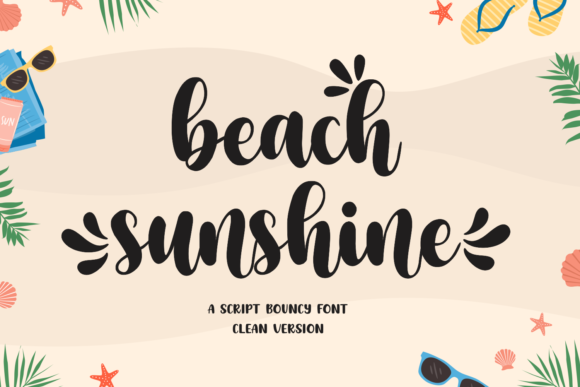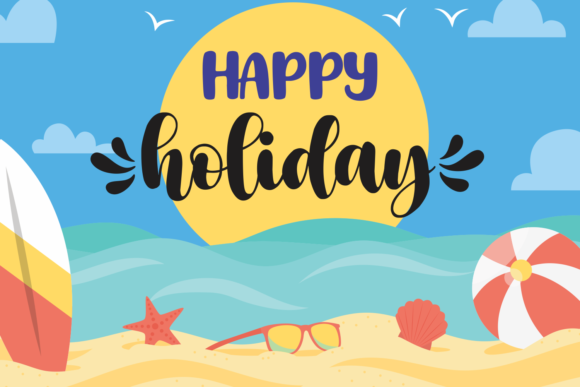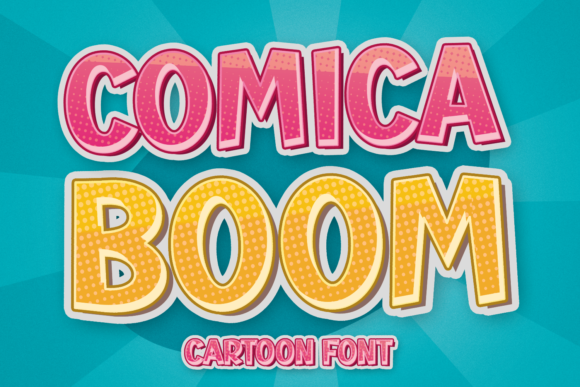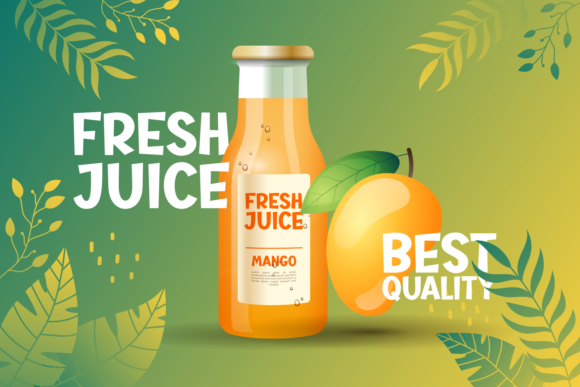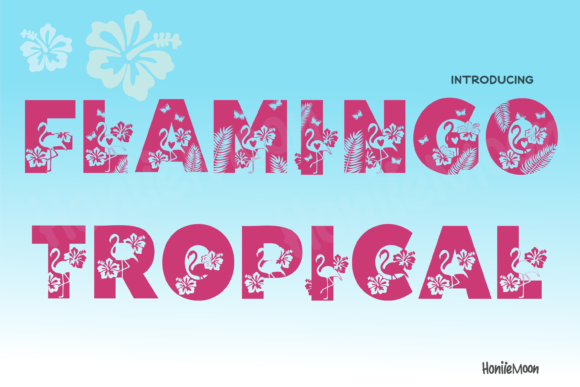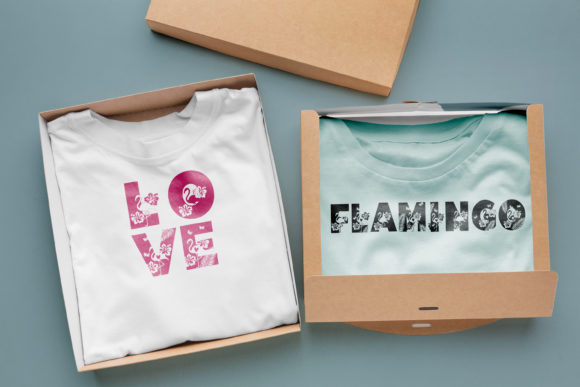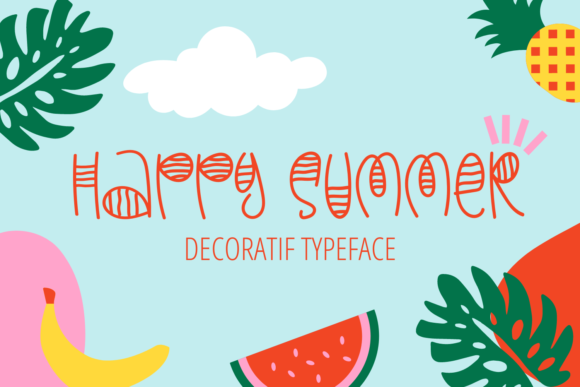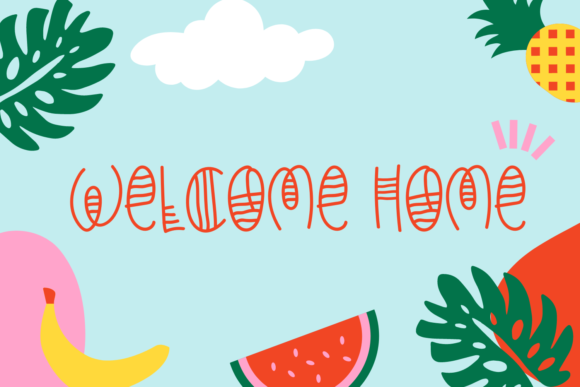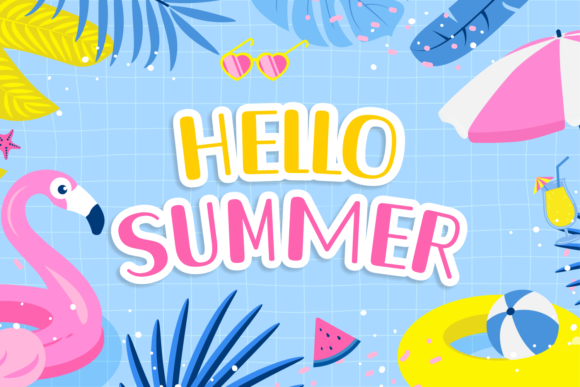
18 Summer Tropical Fonts for Party Event Flyers 2026
As a designer, I love using vibrant typography to capture the energy and excitement of seasonal events. This collection of 18 summer tropical fonts for party event flyers in 2026 features playful and eye-catching typefaces that I personally use to create bold, engaging, and memorable designs.
From relaxed tropical lettering to fun display fonts with a beach-inspired vibe, each typeface was selected to bring warmth, personality, and a festive atmosphere to creative projects. These fonts are perfect for summer parties, beach events, music festivals, travel promotions, social media graphics, and event marketing materials.
I believe great typography helps set the mood before the event even begins, which is why I choose fonts that instantly communicate fun, energy, and the spirit of summer.
Lucky Retro Tropical Font
Lucky Retro is a vibrant display font that captures the charm of vintage signage with a fresh modern twist. I love using it for branding, posters, packaging, logos, merchandise, and social media graphics because its bold rounded lettering feels playful and full of personality. The nostalgic retro style and eye-catching curves create a fun, energetic look that makes every design stand out effortlessl
Beach Sunshine Tropical Font
Beach Sunshine is a sweet handwritten font that brings warmth, softness, and playful charm into any design. I enjoy using it for summer branding, wedding invitations, social media graphics, logos, packaging, and greeting cards because its rounded handwritten style feels cheerful and inviting. The bouncy lettering and smooth curves create a fun modern look that makes every project feel bright, stylish, and full of personality.
Master Vintage Tropical Font
Master Vintage is a retro script display font that perfectly blends nostalgic charm with a bold modern attitude. I love using it for branding, packaging, posters, logos, signage, and merchandise because its vintage-inspired lettering instantly adds character and authenticity. The strong strokes and timeless retro style create an eye-catching look that makes every design feel memorable, stylish, and full of personality.
Summer Love You Tropical Font
Summer Love You is a playful font duo that combines a charming display font with a stylish script typeface for a fun and versatile look. I enjoy using it for branding, invitations, packaging, social media graphics, greeting cards, and seasonal designs because its cheerful lettering feels fresh and full of personality. The perfect blend of bold and handwritten styles makes every project look creative, vibrant, and irresistibly charming.
Hello Tropical Font
Hello Summer is a fun display font that brings a fresh, cheerful vibe to any creative project. I love using it for summer-themed branding, posters, invitations, packaging, social media graphics, and vacation-inspired designs because its relaxed lettering feels playful and inviting. The bold, refreshing style adds warmth and personality, making every design look bright, energetic, and full of sunshine.
Letter Magic Tropical Font
Letter Magic is a vintage serif font that beautifully combines nostalgic charm with timeless elegance. I love using it for branding, posters, packaging, logos, editorial layouts, and social media graphics because its retro-inspired lettering instantly adds character and personality. The classic serif details and playful vintage aesthetic create a memorable look that makes every design feel stylish, creative, and effortlessly eye-catching.
More Summer Duo Tropical Font
More Summer is a fun and playful font duo featuring a stylish script paired with a clean serif display typeface. Fresh, cheerful, and modern, it is perfect for summer-inspired designs, branding, social media posts, logos, packaging, invitations, and lifestyle content. This charming font combination adds a cute and attractive touch to any creative project, making your typography feel light, vibrant, and full of seasonal energy.
Tropical Font
Tropical is a fun decorative font that instantly brings energy, creativity, and a playful personality to any design. I enjoy using it for summer-themed branding, posters, packaging, invitations, social media graphics, and children’s projects because its unique lettering feels cheerful and authentic. The bold decorative style adds a fresh and eye-catching touch that makes every project look vibrant, memorable, and full of character.
Springtime Tropical Font
Springtime is a cute handwritten font that adds a personal and friendly touch to any creative project. I love using it for classroom materials, chalkboard quotes, greeting cards, planners, social media graphics, and educational resources because its thin handwritten lettering feels natural and inviting. The neat and authentic style creates a warm, approachable look that makes every design feel charming, creative, and easy to connect with.
Lemon Tropical Font
Lemon Font is a playful display font that brings a fresh and cheerful touch to any creative project. I love using it for summer designs, greeting cards, kids’ projects, seasonal branding, packaging, home decor, and social media graphics because its cute lettering feels bright and full of personality. The whimsical style and lively character make every design look fun, uplifting, and wonderfully memorable.
Summer Vintage Tropical Font
Summer Vintage is a bold, retro, and groovy font that captures a nostalgic, playful vibe. With its thick strokes and smooth curves, it brings a vibrant vintage feel to any design. Perfect for branding, logos, merchandise, greeting cards, sublimation, print-on-demand, decals, DIY crafts, and KDP interiors such as planners.
Strawberry Shortcake Tropical Font
Strawberry Shortcake is a quirky and relaxed handwritten font that brings a playful and friendly feel to any design. Perfect for branding, social media posts, quotes, packaging, invitations, and creative crafts, it adds a warm and approachable touch to your typography. Whatever the topic, this charming font is a versatile addition to any font library, enhancing every creation with its casual and expressive handwritten style.
Comica Boom Tropical Font
Comica Boom is a fun, playful, and bold display font with thick letterforms that instantly capture attention. Perfect for cartoon designs, children’s games, comic-style graphics, posters, logos, and creative branding, it adds a lively and cheerful touch to any project. Ideal for modern playful typography, Comica Boom enhances designs with its energetic, friendly, and expressive character.
Just Kidding Tropical Font
Just Kidding is a playful handwritten font designed to add a natural, casual touch to any creative project. Perfect for quotes, logos, social media posts, branding, invitations, and personal designs, it brings a friendly and expressive feel to your typography. Ideal for modern handwritten style compositions, Just Kidding makes every design look effortless, fun, and authentic.
Flamingo Tropical Font
Flamingo Tropical is a cool and fun decorative font with a cute and joyful personality. Its playful style makes it perfect for summer designs, branding, posters, social media, invitations, packaging, and creative crafts. Ideal for modern decorative typography, Flamingo Tropical enhances any project with a vibrant, cheerful, and eye-catching aesthetic that instantly brings designs to life.
Surf Boards Tropical Font
Surf Boards is a cool, original decorative font with a fun and authentic vibe. Perfect for branding, posters, social media, logos, packaging, and creative projects, it adds a playful and eye-catching touch to any design. Ideal for modern display typography, Surf Boards enhances your work with a cute, energetic style—limited only by your imagination.
Happy Tropical Font
Happy Summer is a cute, chic, and quirky display font with a whimsical, jolly personality. Perfect for branding, posters, social media, invitations, packaging, and creative crafts, it brings a bright and cheerful touch to any design. Ideal for modern display typography, Happy Summer enhances your projects with fun, playful energy and eye-catching style.
Summer Days Tropical Font
Summer Days is a cool, cute, and bubbly display font that brings a fresh and joyful feel to any design. Perfect for party invitations, summer events, pool gatherings, branding, posters, social media, and creative crafts, it adds a youthful and playful touch. Ideal for modern display typography, Summer Days enhances your projects with bright energy and fun seasonal vibes.